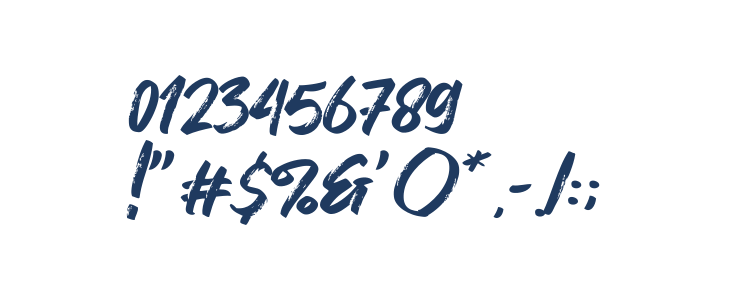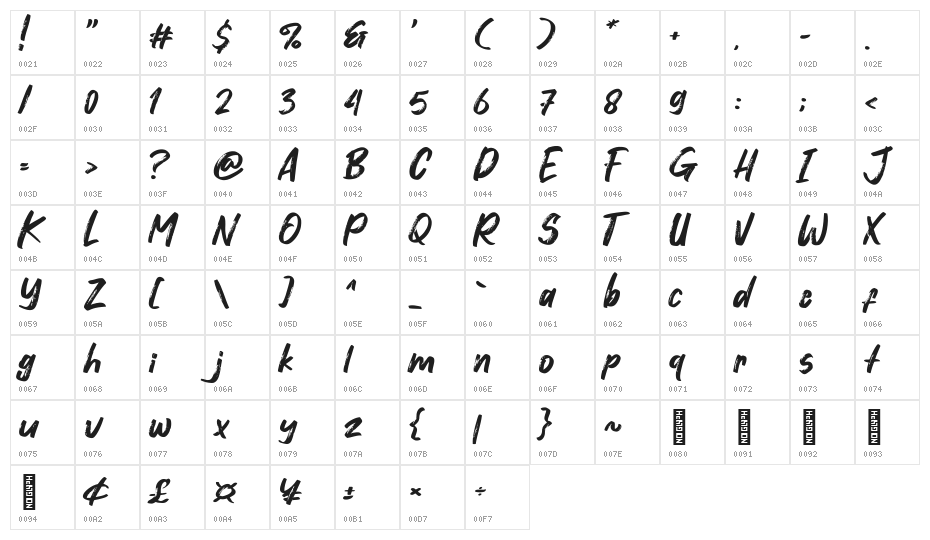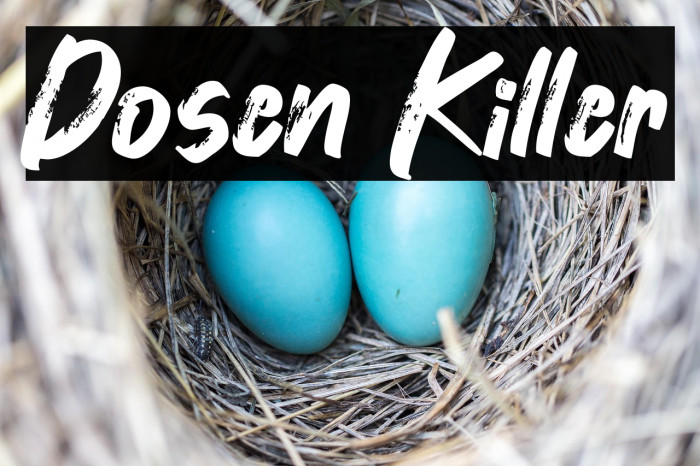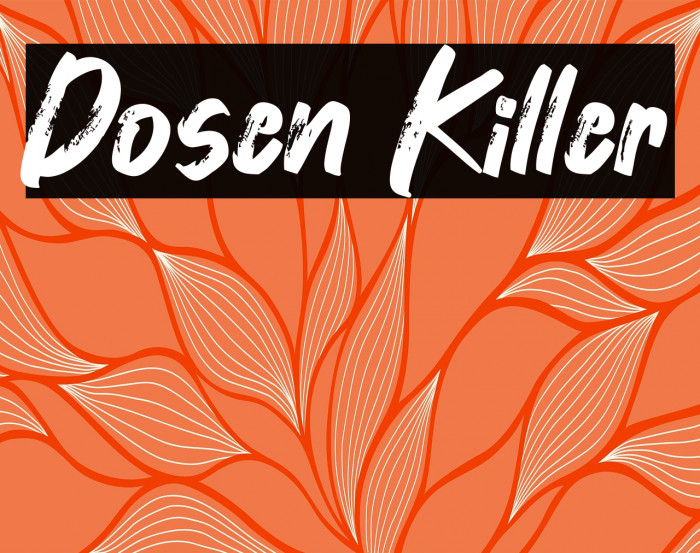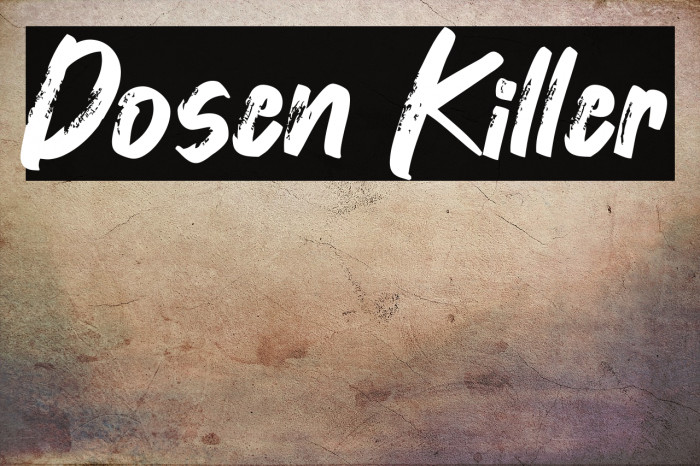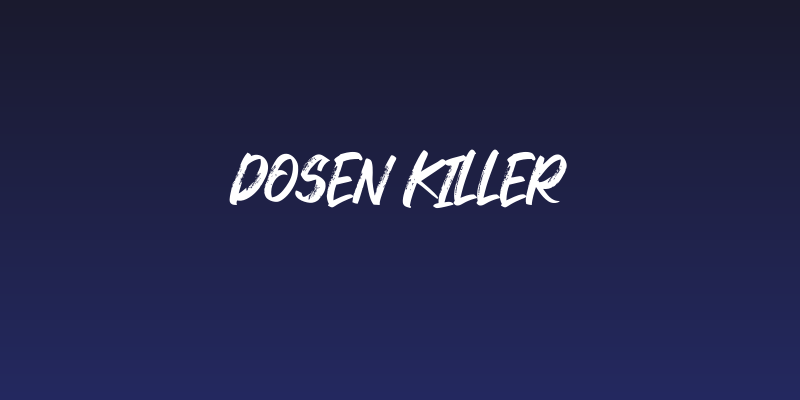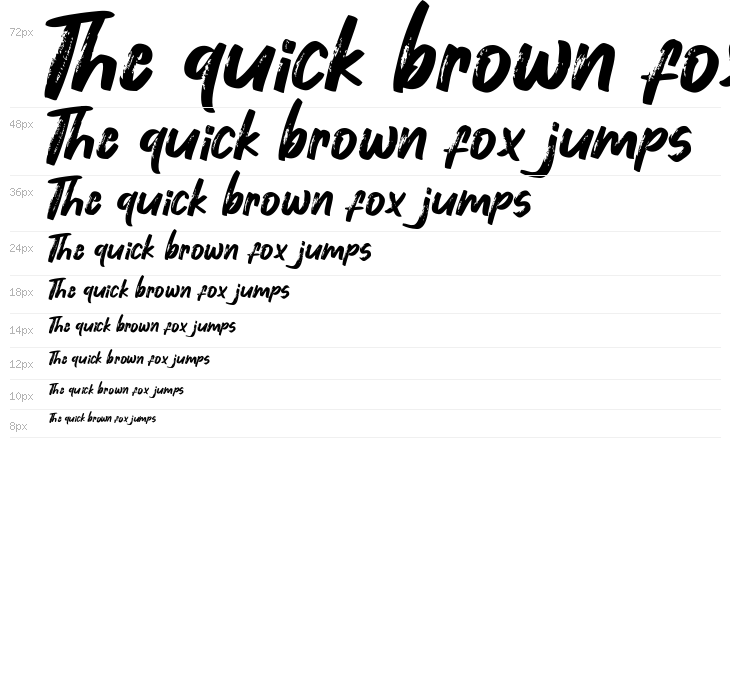
Dosen Killer Font
Dosen Killer Description
This font exudes a bold and energetic vibe, characterized by its brush-like strokes and dynamic flow. The letters are crafted with a hand-painted appearance, giving them a raw and artistic feel. The uppercase and lowercase letters maintain a consistent style, with slightly varying thicknesses that add to the font's lively character. Numbers and special characters follow the same expressive design, ensuring a cohesive look across all elements. The overall impression is one of spontaneity and creativity, making it ideal for projects that require a touch of artistic flair.
| Proposed Projects | Ideal for posters, album covers, branding, and any creative project needing a dynamic and artistic touch. |